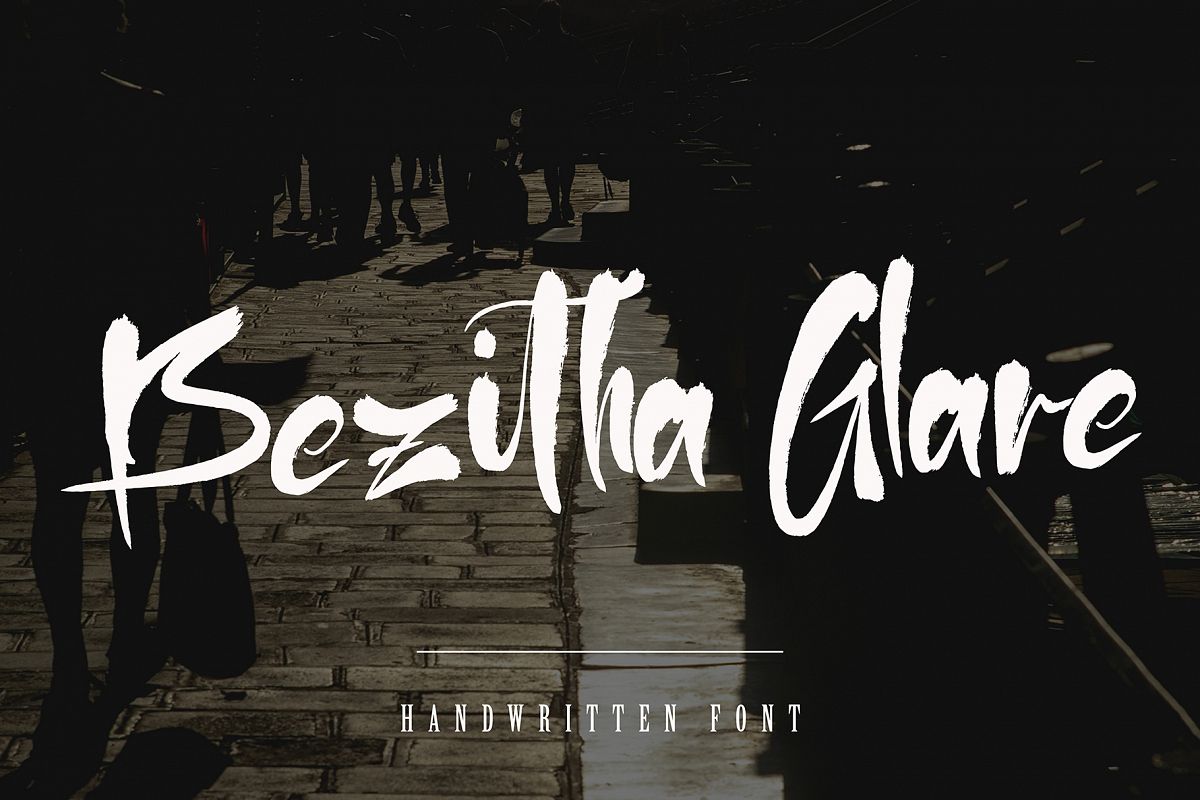
Created By Pineungtype
Bezitha
Bezitha brush font this font will perfect for many different project ex: quotes, logo, blog header, poster, banding, fashion, apparel, letter, invitation, stationery, etc...
Bezitha
By Pineungtype